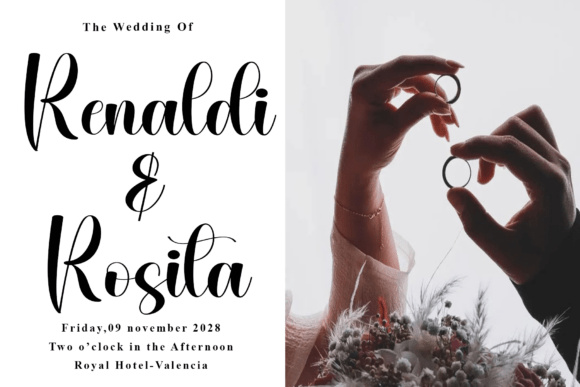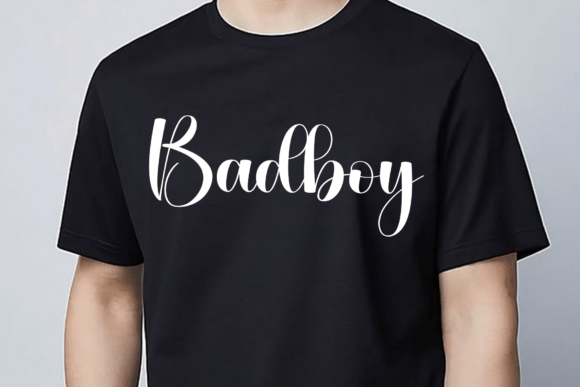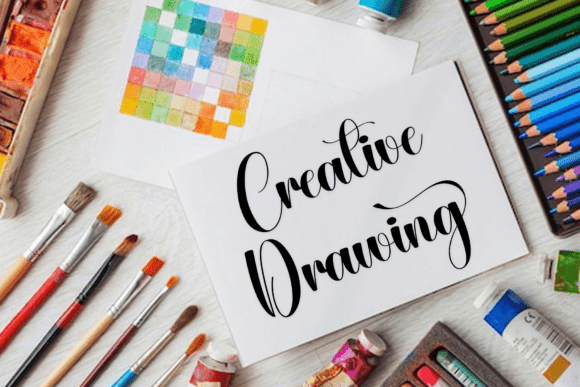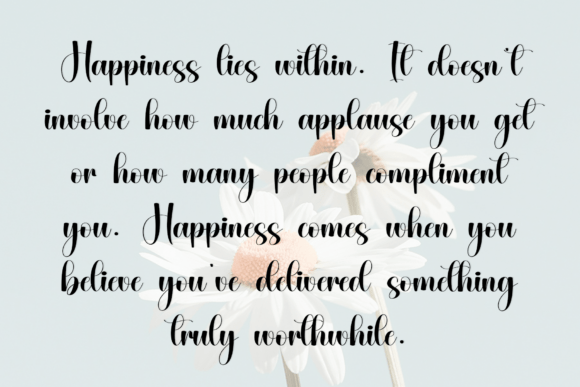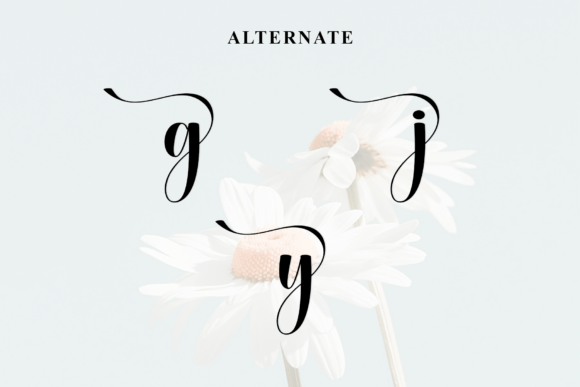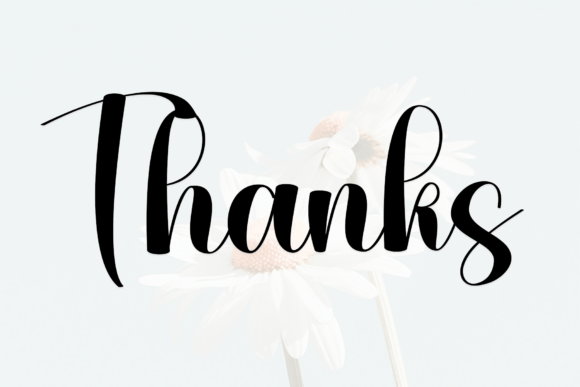
Introduction to Daisy3 Font
Daisy is a sophisticated handwritten script font that radiates refined elegance and stylish flair.
Its flowing curves and seamless connections capture the graceful rhythm of a calligrapherโs hand, while its harmonious balance of decorative swashes and clear letterforms makes it both beautiful and highly legible Perfect for branding, invitations, stationery, packaging, and any project that calls for a romantic yet modern touch , Daisy brings warmth and charm to every design.
Key Features of Daisy3 Font
Why Choose Daisy3 Font?